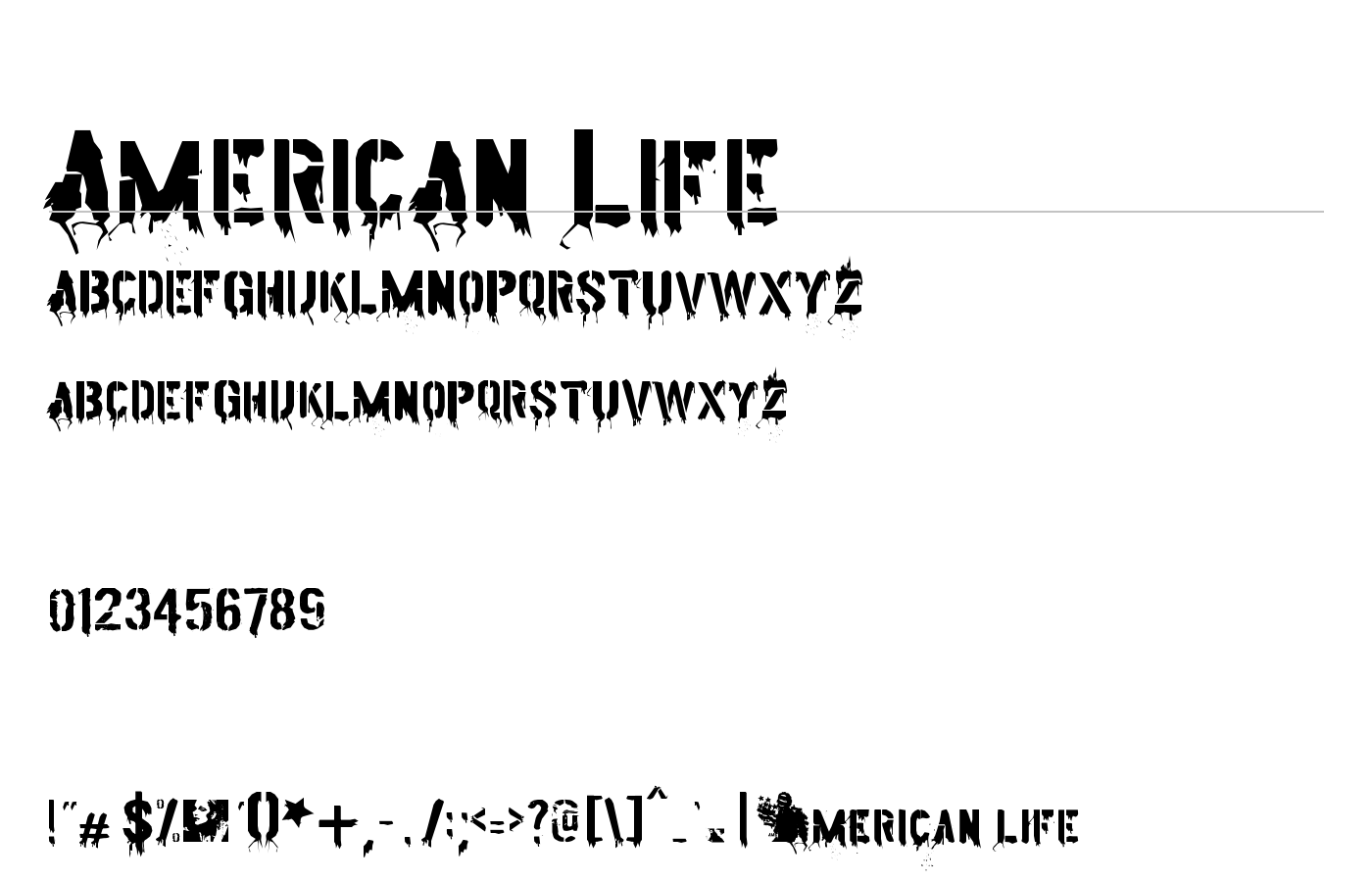
American Life is a bold, condensed display font with a distressed, grungy texture that gives it a raw, edgy character. Its uppercase-only design features sharp, irregular edges that mimic peeling or cracking effects, making it ideal for striking headlines, posters, and creative projects that seek a rebellious or urban vibe. This font works best in designs that need to convey intensity and attitude, such as streetwear branding, music event posters, or alternative lifestyle promotions.
American Life Font
About American Life Font